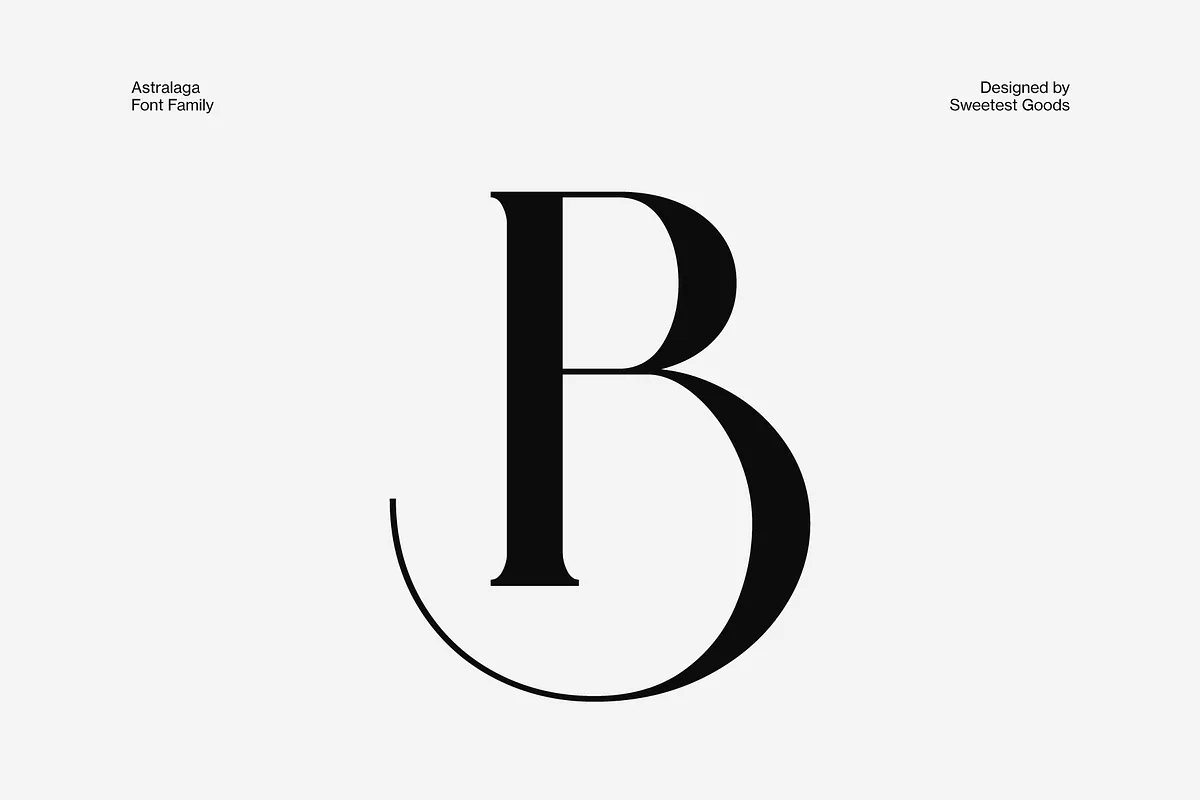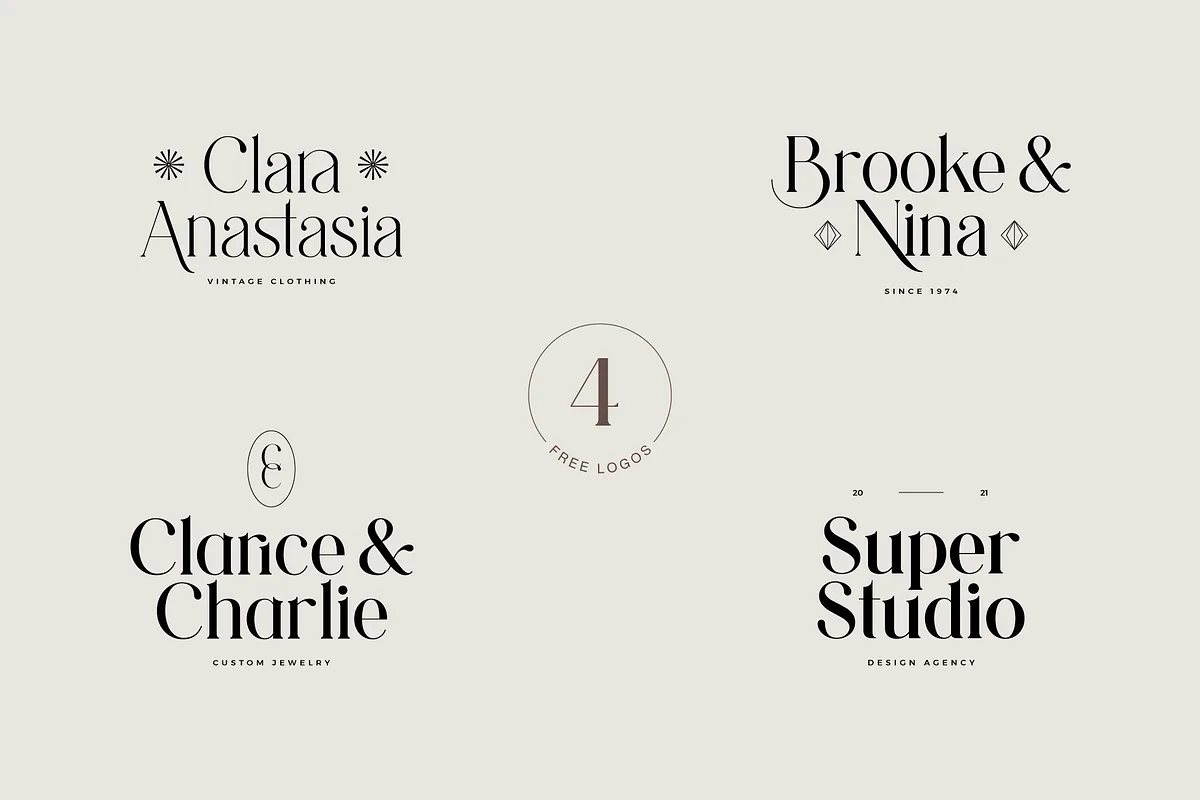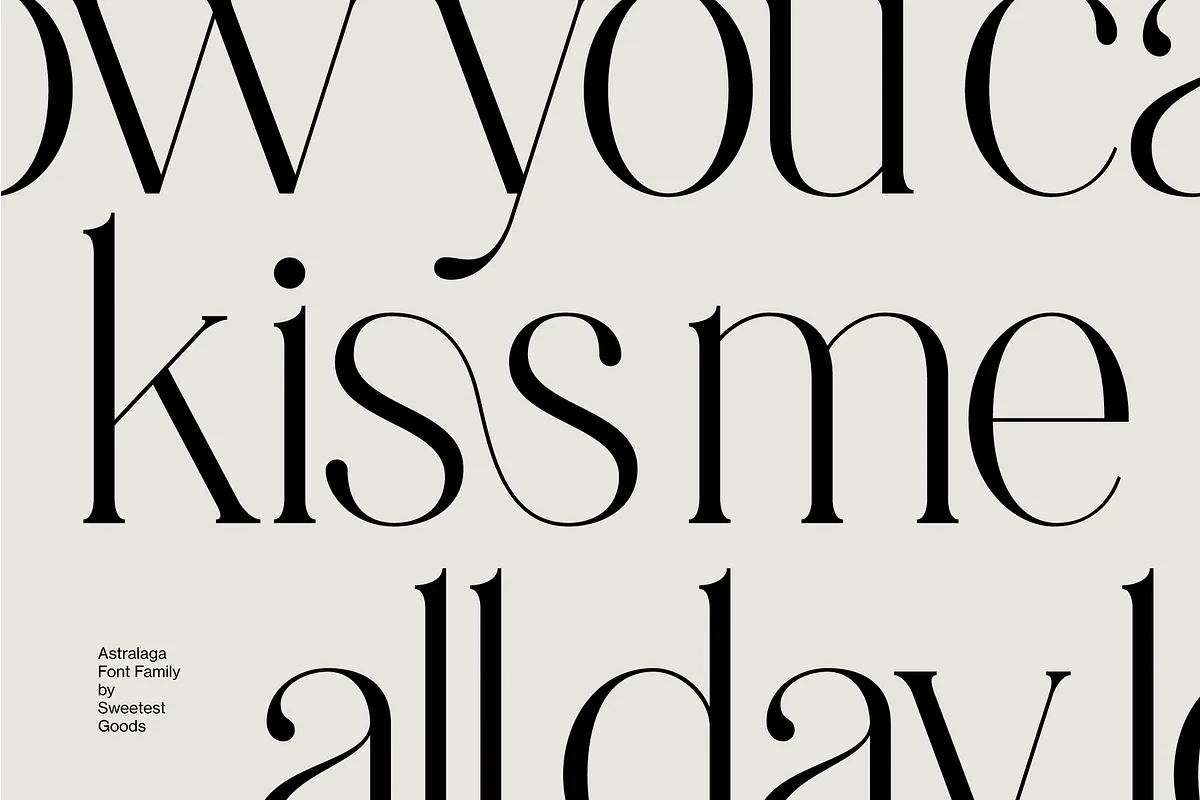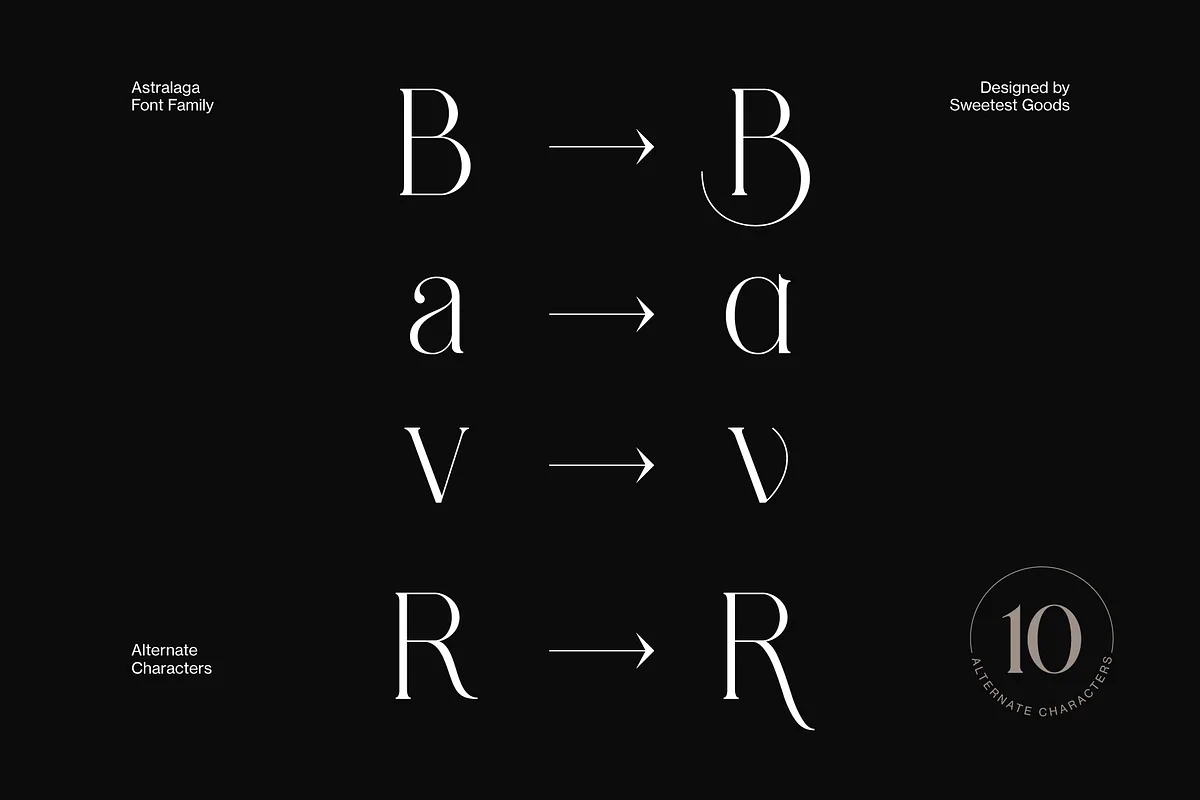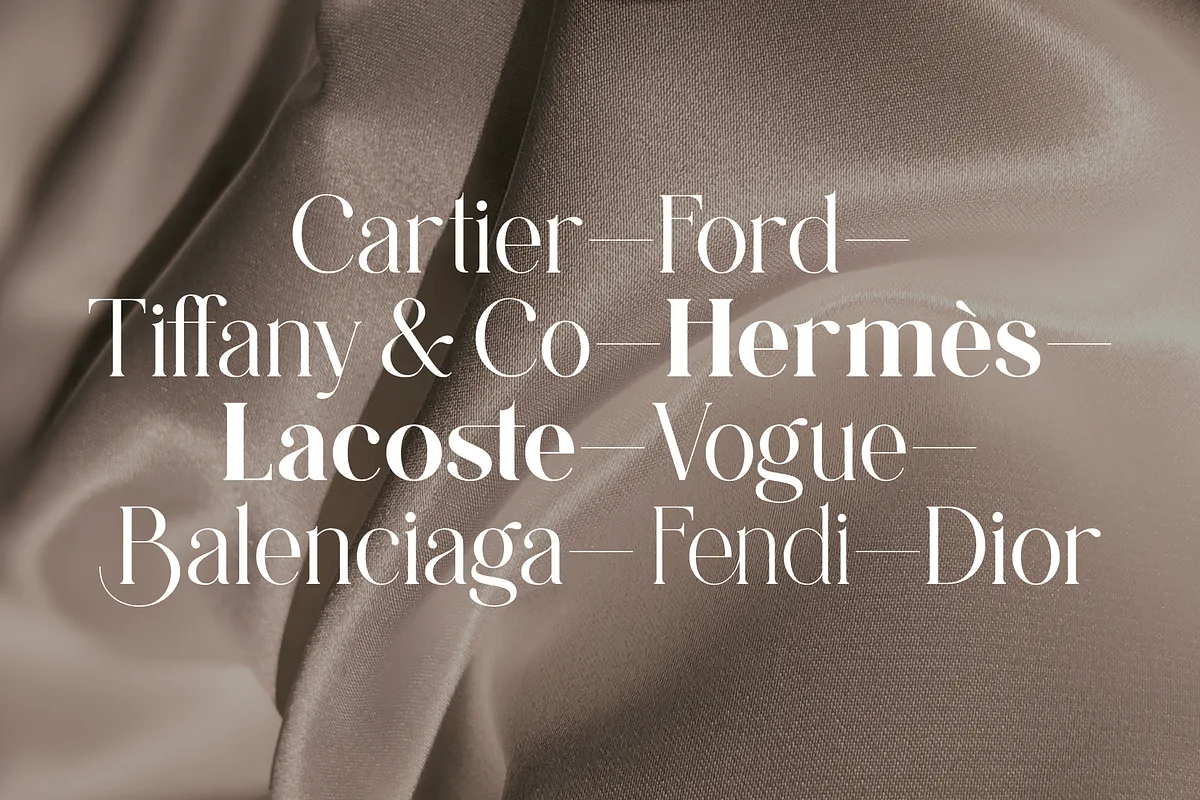
Elegant, graceful, and timeless. Astralaga is a versatile serif font family with a timeless, classic appeal, over 50 alternates & ligatures and multilingual support.
All 5 weights are well-suited for large display uses and high impact headlines.
Every letter of Astralaga has been hand-drawn and crafted with the upmost care. The many available stylistic alternatives and ligatures allow a high degree of customization.